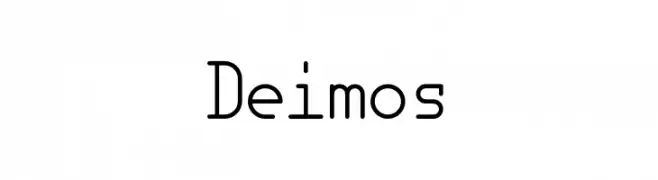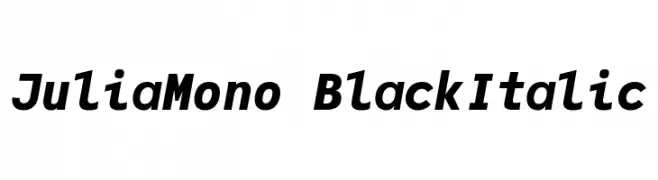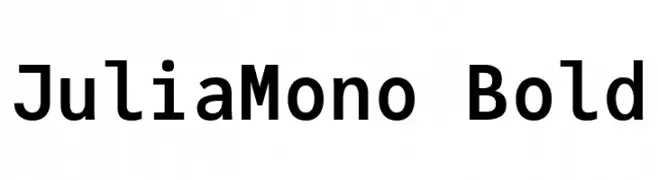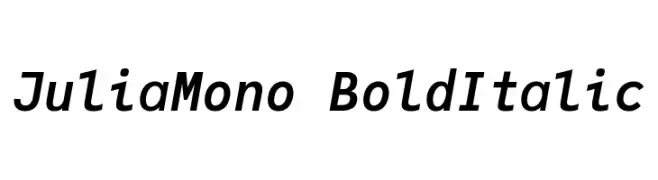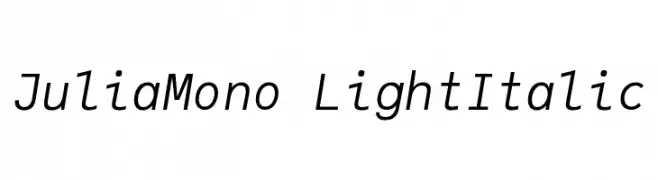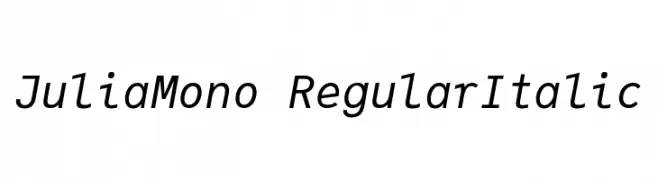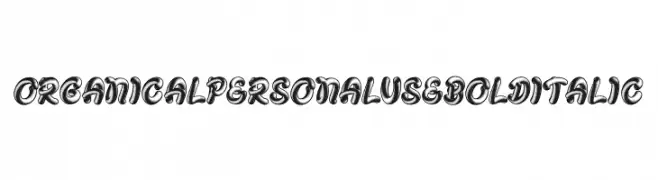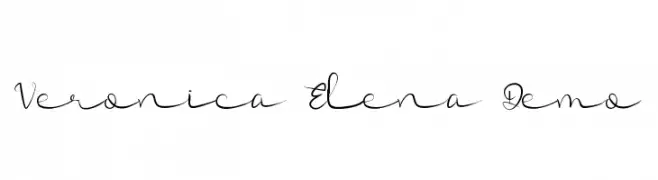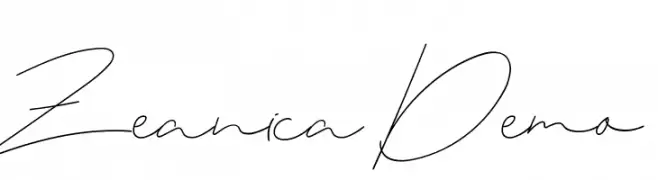
( Fonts by Philipp Nurullin )
A bold, italic monospaced font ideal for coding and technical use.
( Fonts by Matt Wilson )
A modern, monospaced font with geometric design and low contrast.
A bold, italicized, and decorative font with a three-dimensional, organic style.
A delicate, flowing script font with an elegant, handwritten style.
An elegant script font with flowing, cursive lines and artistic flourishes.
( Fonts by cormullion )
A bold, monospaced font with clean lines and high legibility.
( Fonts by cormullion )
A modern, light, italic monospaced font with clean lines and uniform spacing.
( Fonts by cormullion )
A bold, italicized monospaced font with a modern and professional style.
( Fonts by cormullion )
A modern, monospaced italic font with clean lines and uniform width.
( Fonts by cormullion )
A bold, italic, monospaced font with a modern and dynamic style.